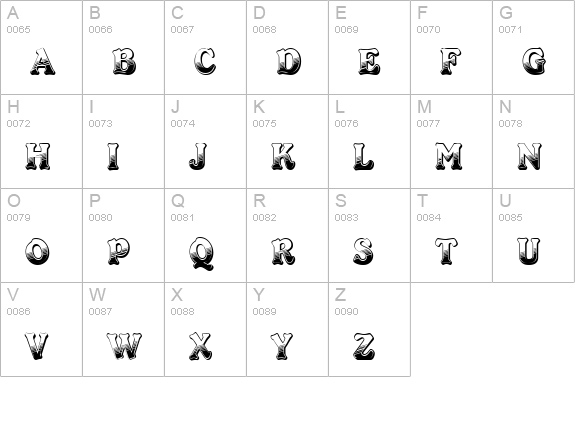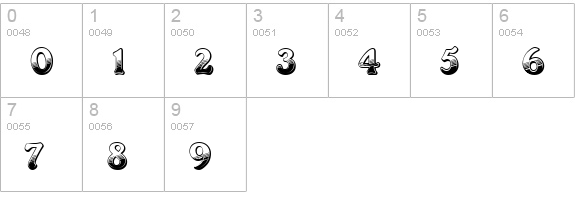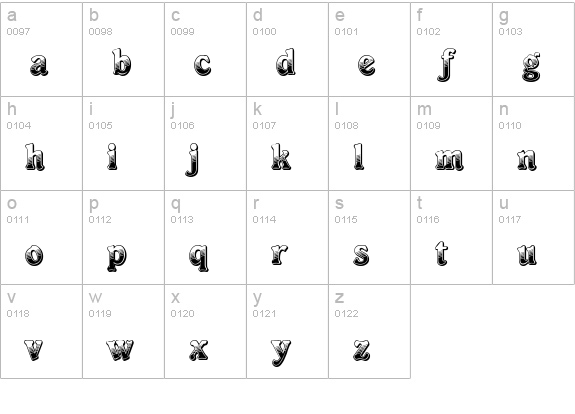
Heisse Schokolade Normal Font Details
Heisse Schokolade Normal is the standard, neutral variant in the Heisse typeface family \xE2\x80\x94 well suited to general body text, paragraphs, and standard typographic work.
Heisse Schokolade Normal font is a delightful and warm typeface that perfectly captures the essence of a steaming cup of hot chocolate. Its smooth and rounded letterforms evoke a sense of coziness and comfort, making it the perfect choice for projects that aim to create a welcoming and inviting atmosphere. This font has a unique charm that is sure to grab attention while maintaining a sense of elegance. It is versatile and can be used in a variety of design applications, from branding and packaging to posters and invitations. Whether you're designing a menu for a café or creating a greeting card for a loved one, Heisse Schokolade Normal font will add a touch of warmth and personality to your project. One of the best things about Heisse Schokolade Normal font is that it is free to download at FontsMarket.com. This means that you can enjoy all the benefits of this beautiful typeface without any cost. It's a fantastic opportunity to elevate your designs without breaking the bank. With its smooth curves and attention to detail, Heisse Schokolade Normal font is a must-have for any designer or typographer looking to add a touch of sweetness to their creations. Its freely available download at FontsMarket.com ensures that anyone can enjoy the beauty and versatility of this delightful typeface. So go ahead, download Heisse Schokolade Normal font today and bring a taste of warm and inviting hot chocolate to your designs.